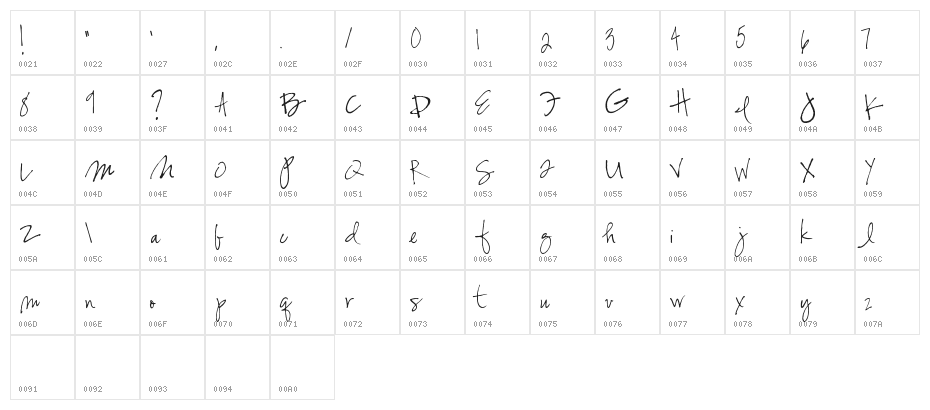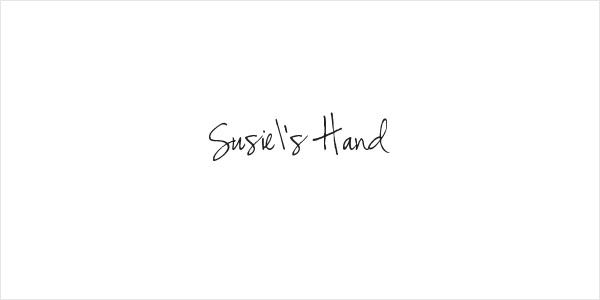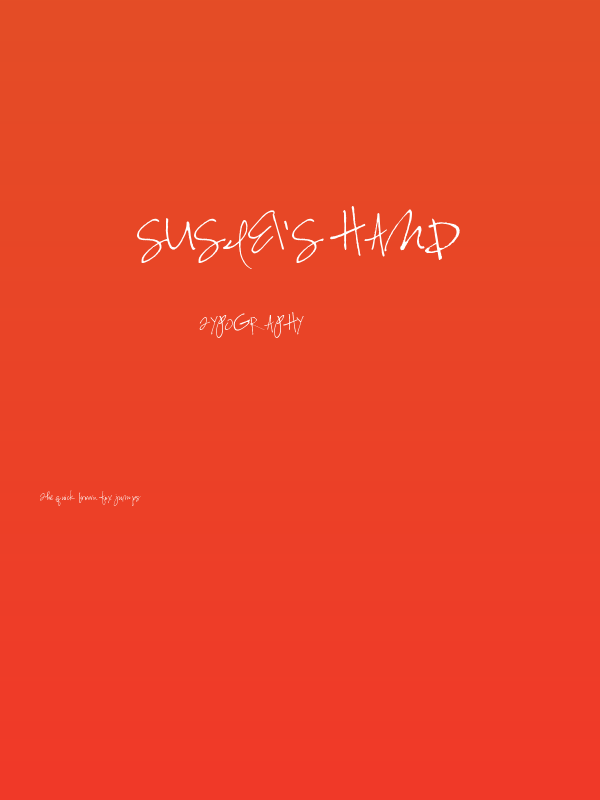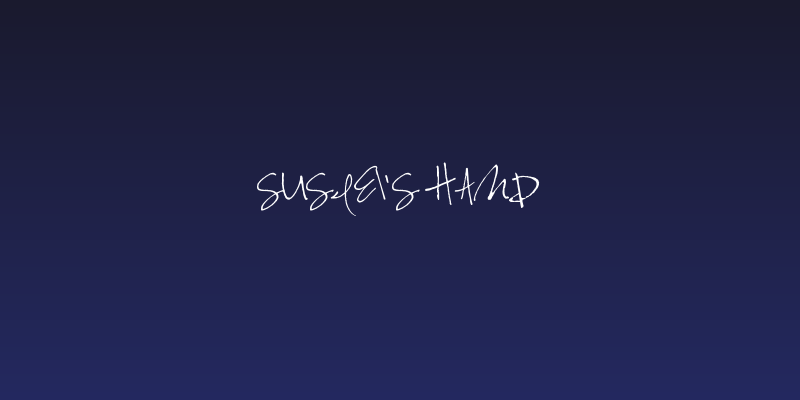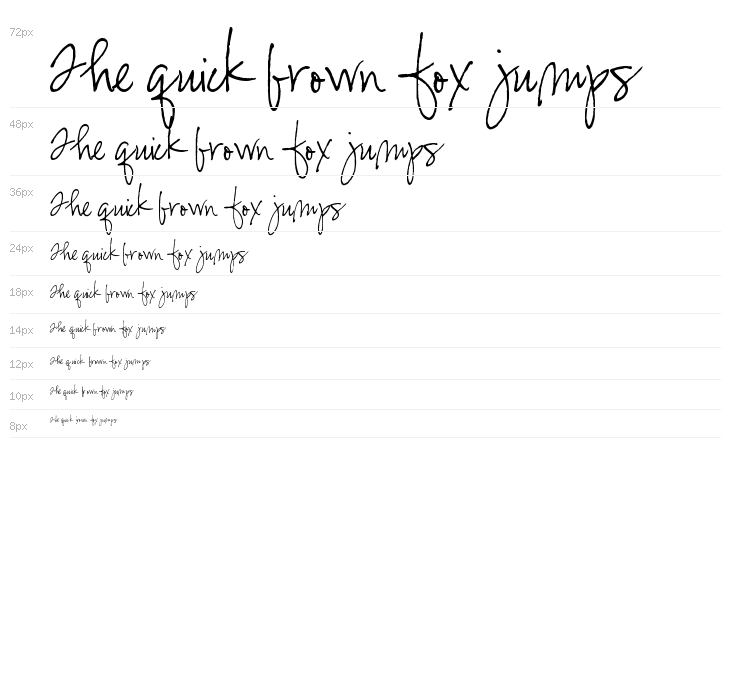
Susie's Hand Font
Susie's Hand Description
This font exudes a casual, handwritten style with a playful and artistic flair. The letters are characterized by their free-flowing, cursive nature, giving an impression of spontaneity and creativity. The strokes vary in thickness, adding a dynamic and lively feel to the text. The uppercase letters are bold and prominent, while the lowercase letters maintain a consistent fluidity. Numbers and special characters follow the same whimsical style, ensuring a cohesive look across all characters. This font is perfect for projects that require a personal touch or an informal, friendly vibe.
Overall StyleCasual, Artistic
Use CaseHeadlines, Personal projects, Creative designs
Proposed ProjectsIdeal for greeting cards, invitations, personal branding, and creative projects that require a personal touch.